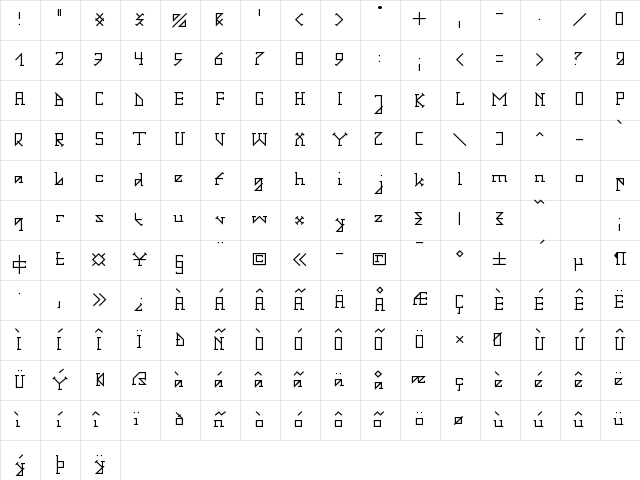
Gotika Serifai A Regular
| Designer | A.Skersys (extate) |
Design Context for Gotika Serifai A Typeface
Gotika Serifai A brings classic typographic sensibility to the table — its serifs and measured letterforms reflect centuries of print heritage.